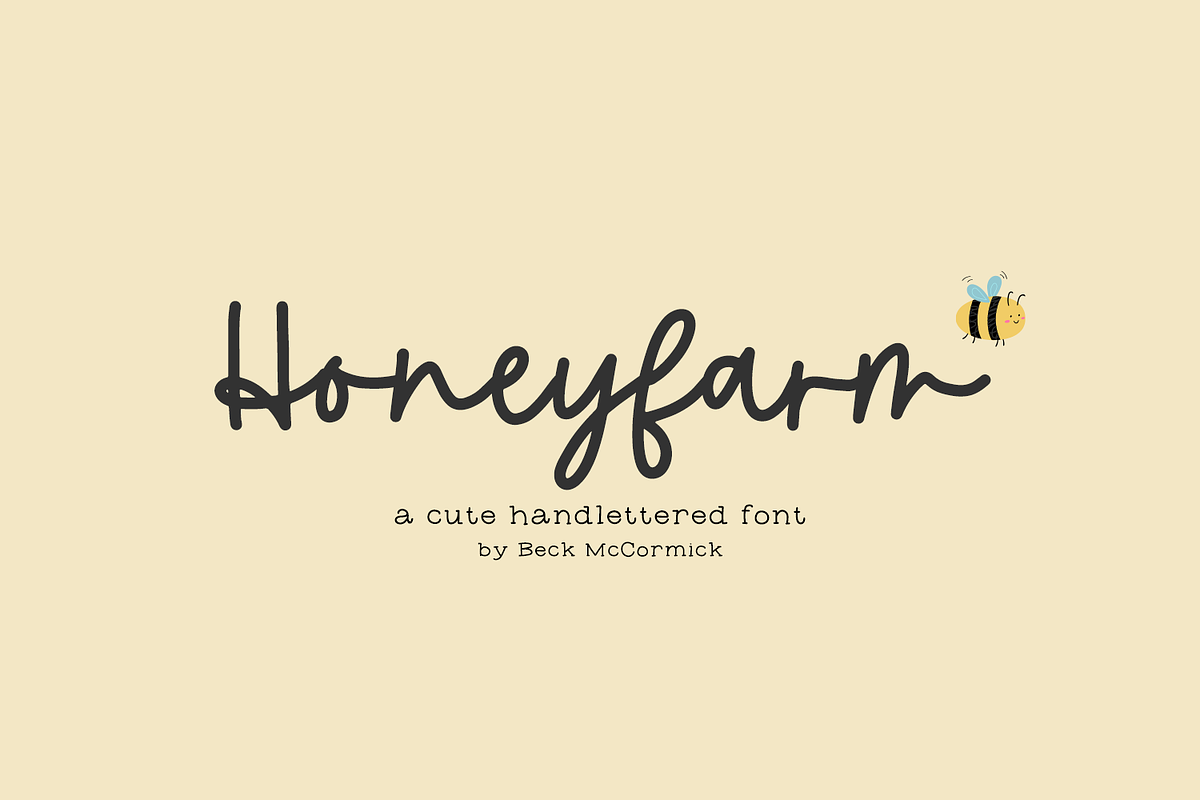
Honeyfarm Script Font Free Download is a charming and flowing handwritten typeface inspired by countryside warmth and homemade goodness. With its smooth curves, elegant swashes, and natural rhythm, this font is perfect for farmhouse-style branding, organic product packaging, recipe cards, wedding invitations, and cozy social media graphics.
The handwritten style gives every design a personal, heartfelt touch, making Honeyfarm ideal for creators who want to evoke comfort, authenticity, and a bit of rustic flair. Its balance between casual and elegant makes it incredibly versatile across a range of creative projects.
Bring warmth and authenticity to your next design with the natural elegance of Honeyfarm.